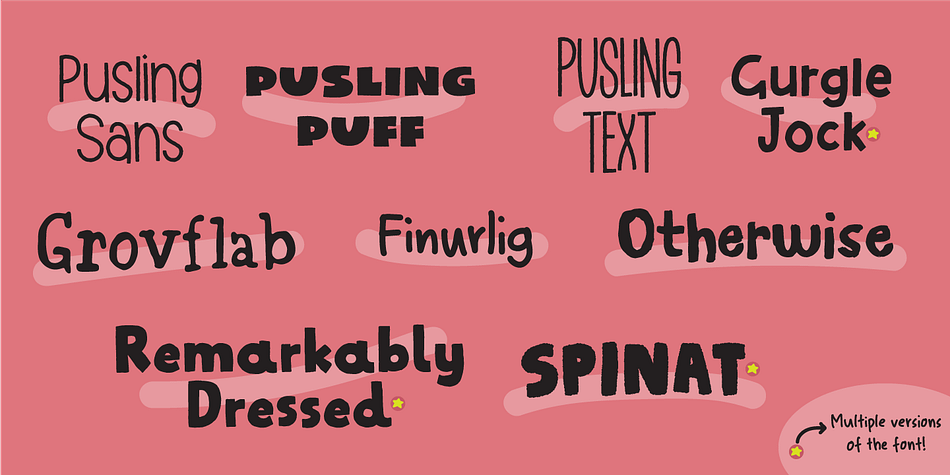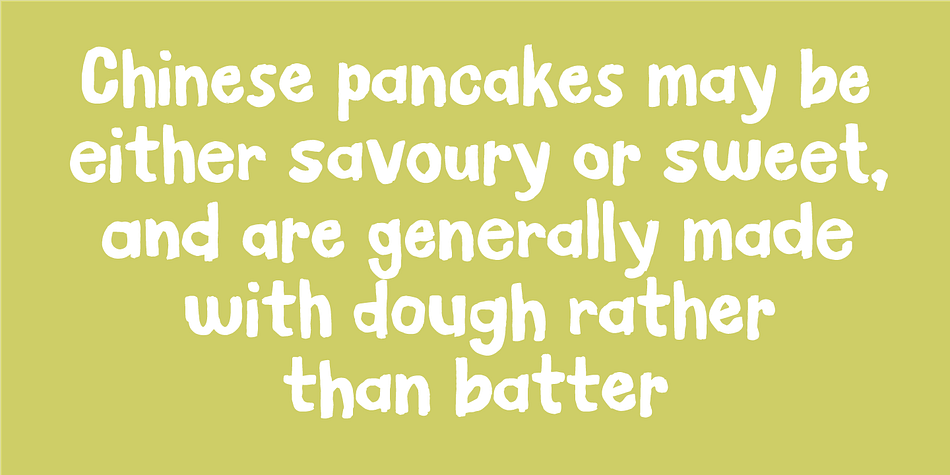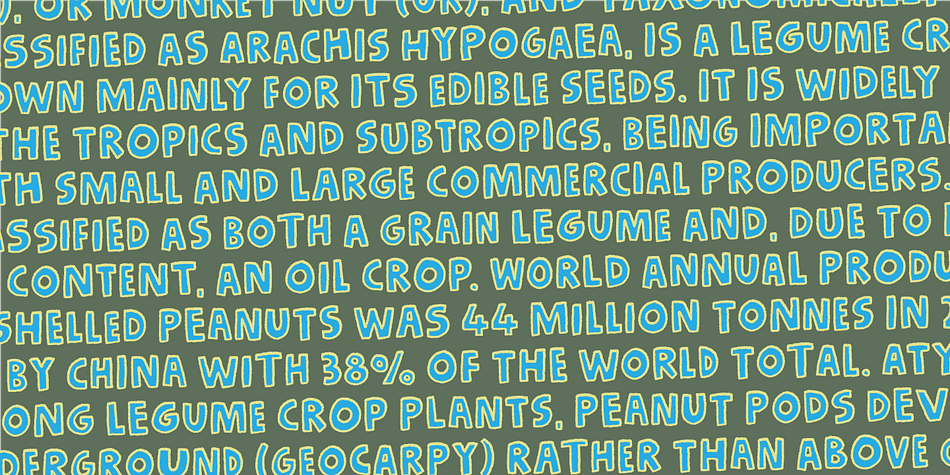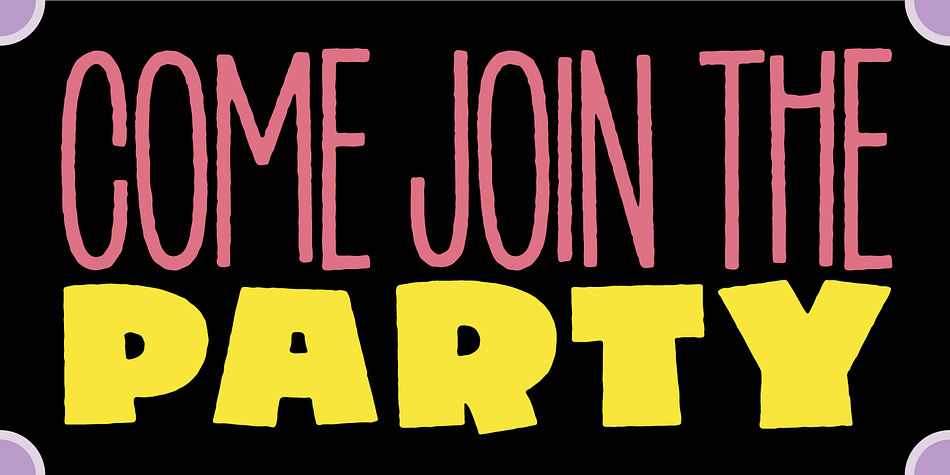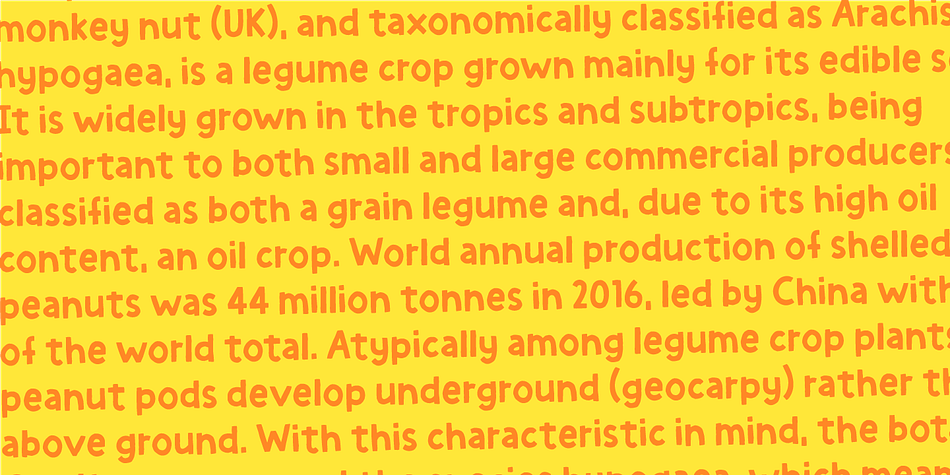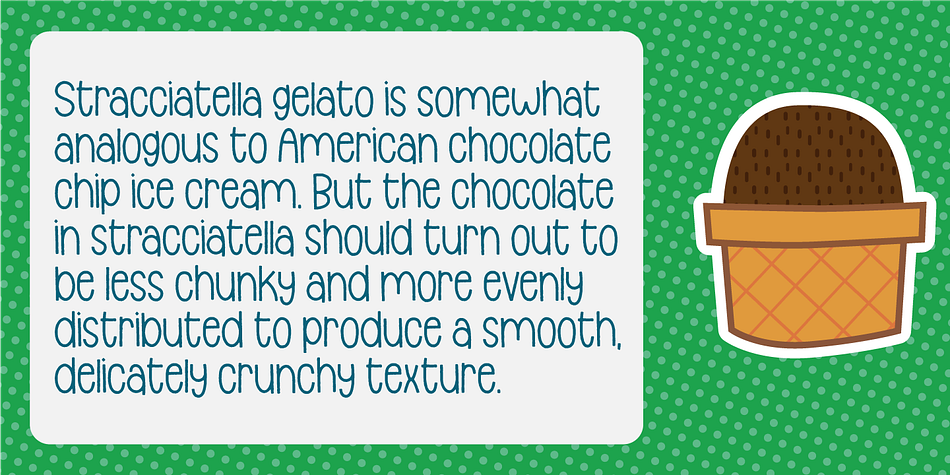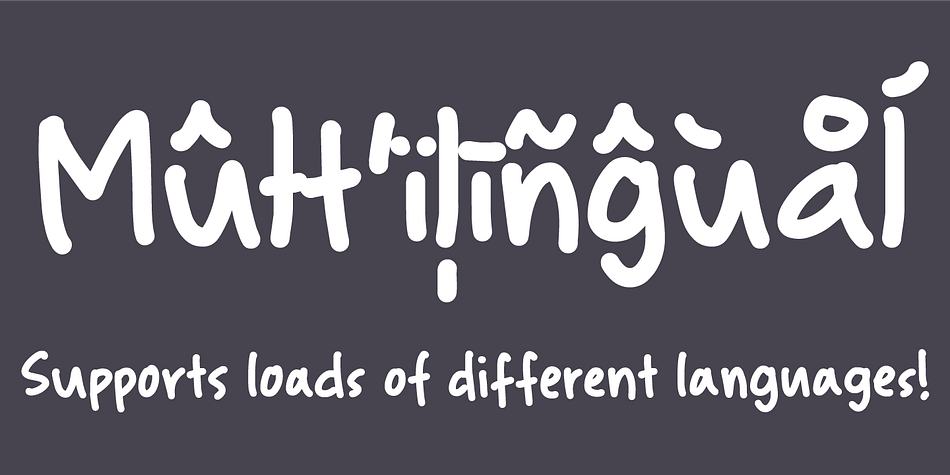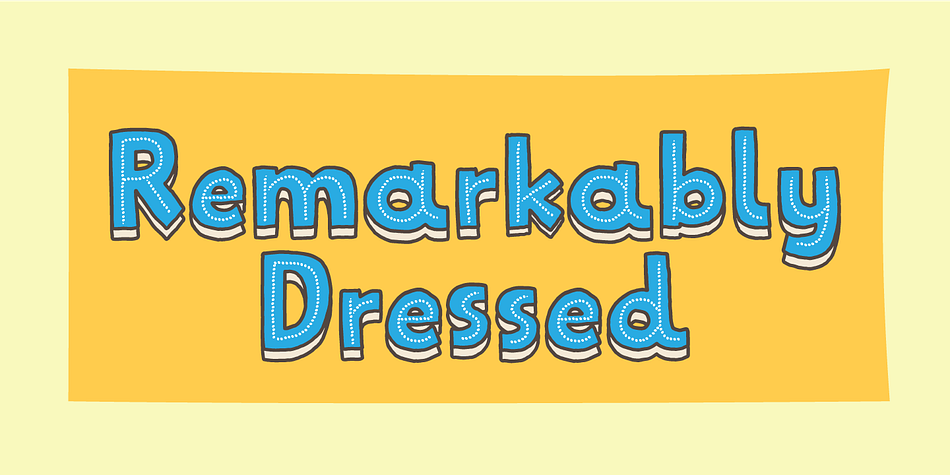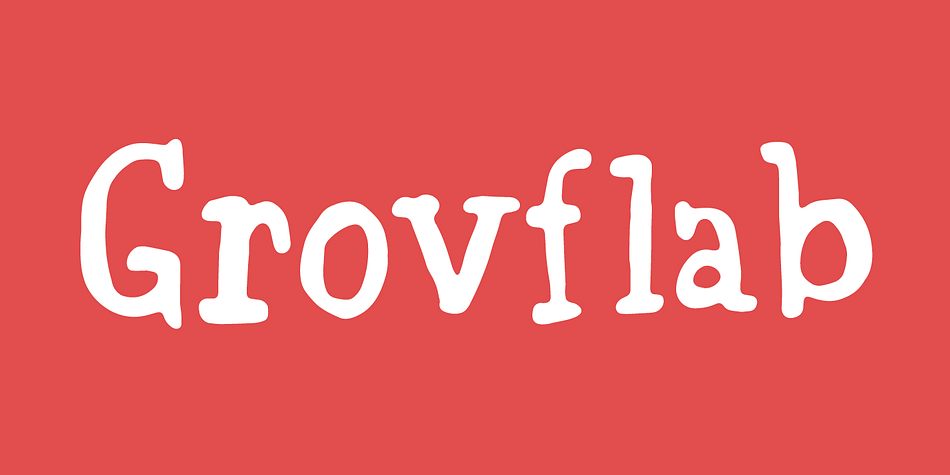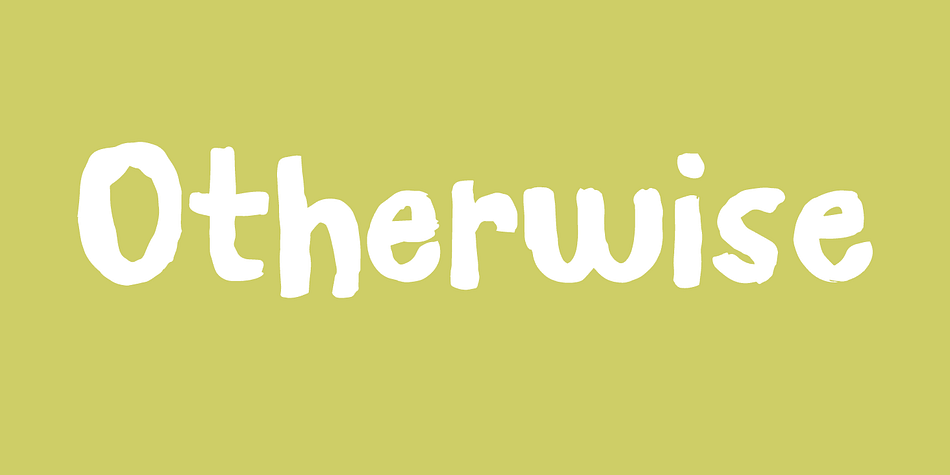
Fonts For Kids Super Family
Designed by Jakob Fischer, Fonts for kids is a hand display, hand drawn and kids font collection published by Bogstav.
All of the fonts in this collection has a playful and handmade look. And that is something that fits very well to products for kids.
Some of the fonts even have several versions, like Outline, Shadow, Inline and so on. Most of these fonts even have Contextual Alternates, meaning several versions of each letter!